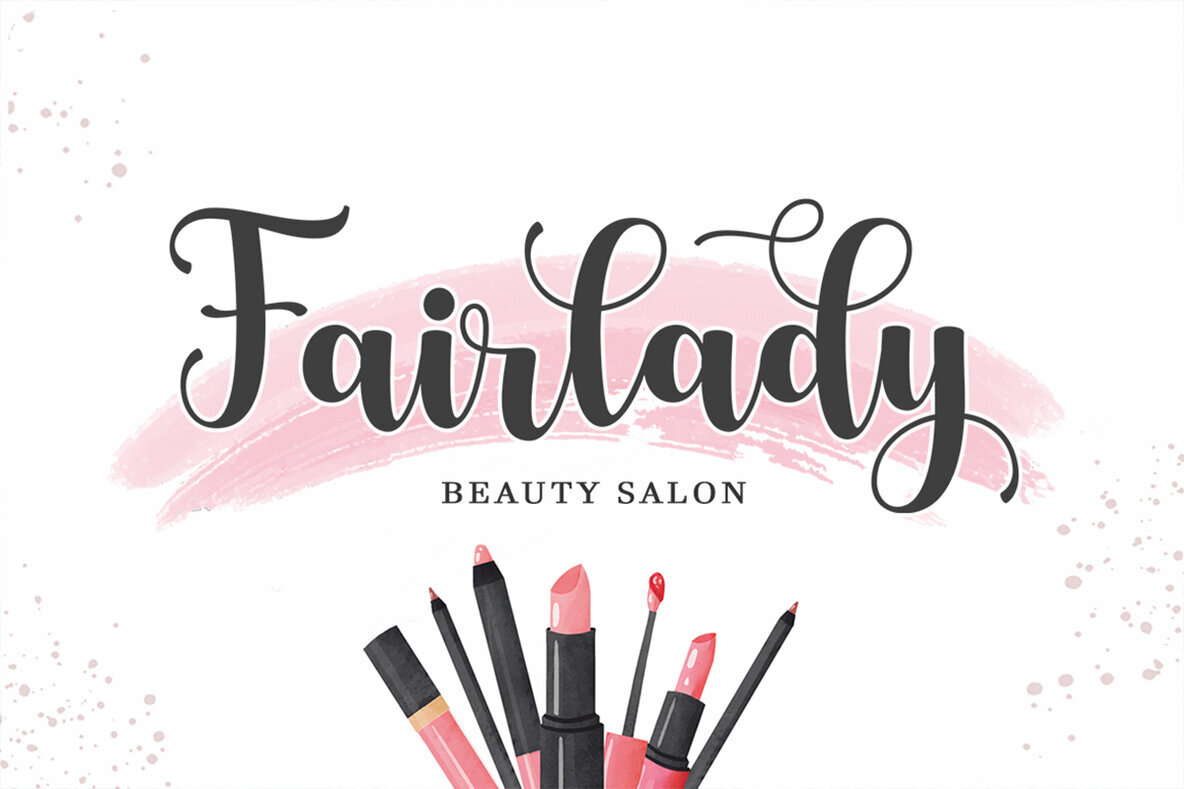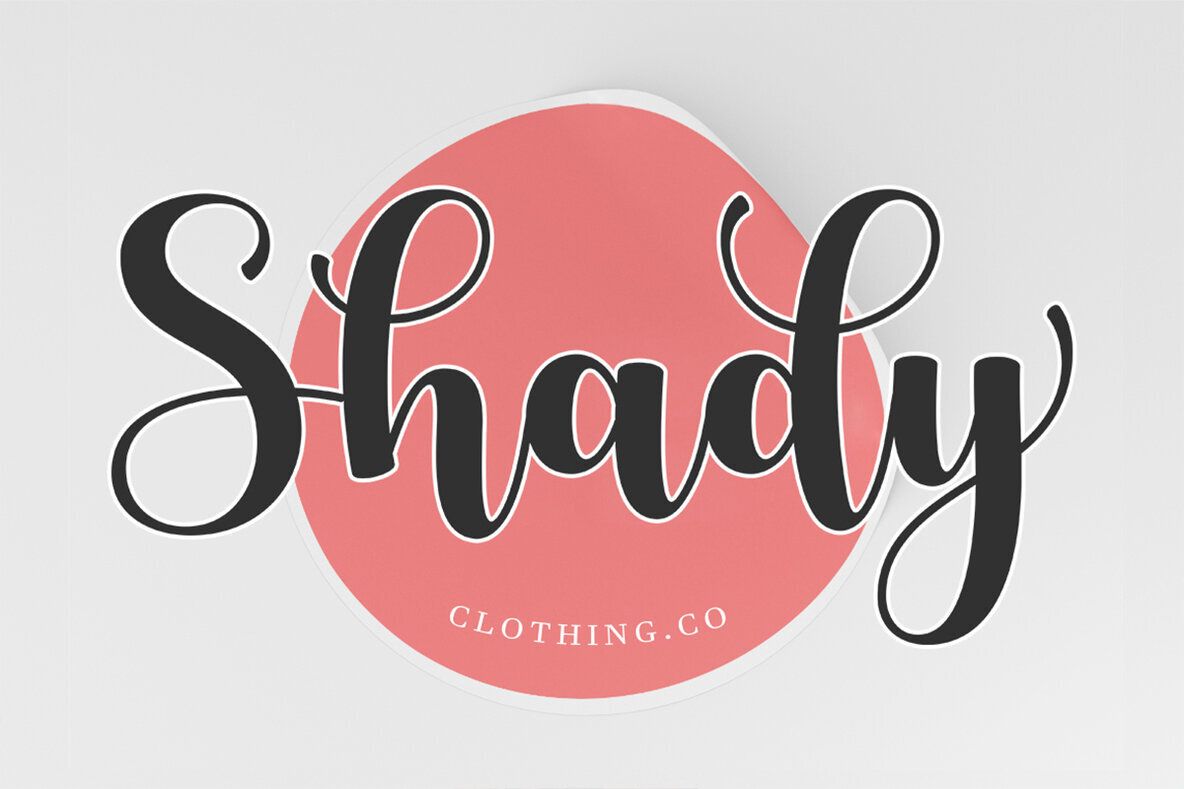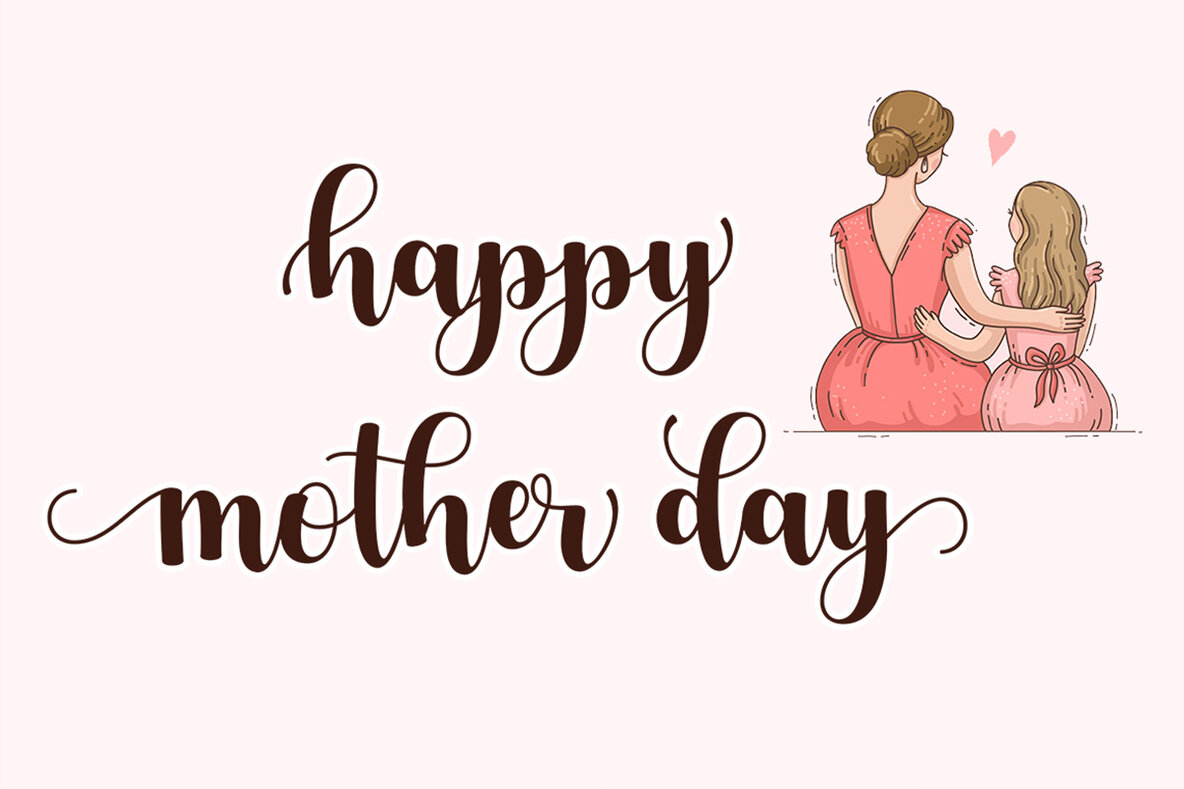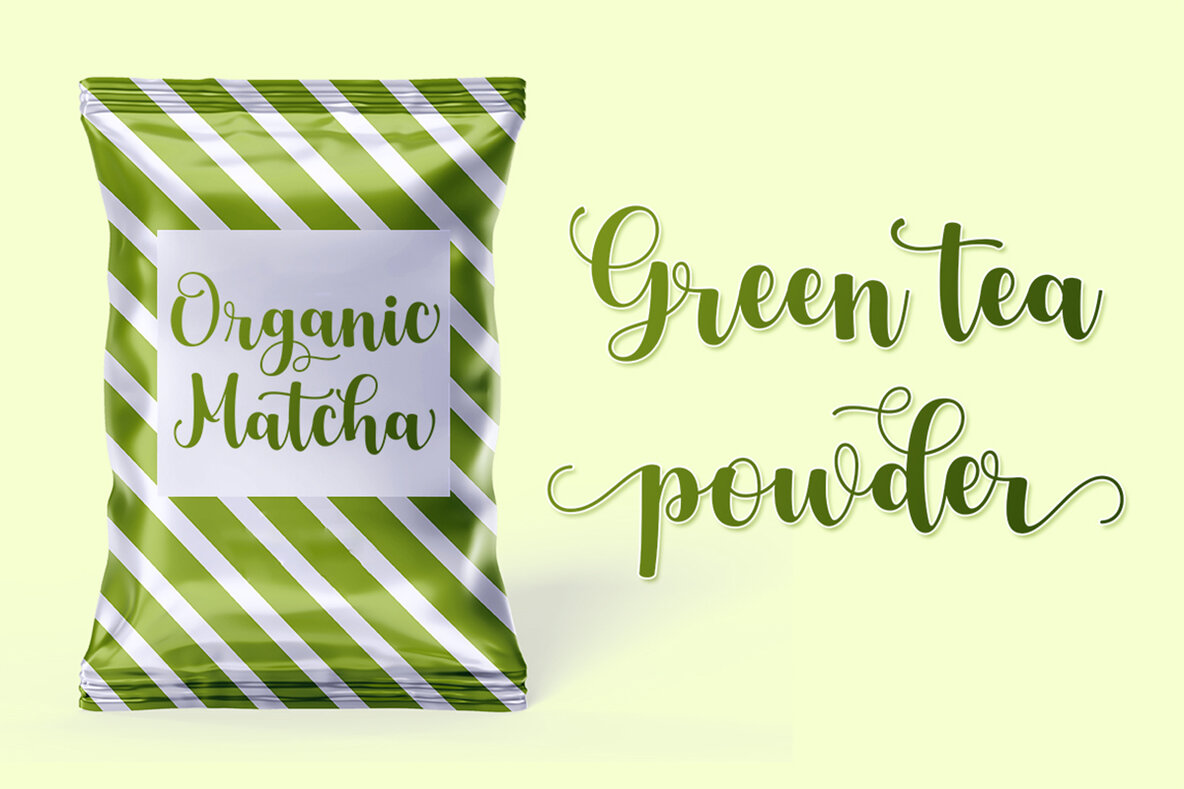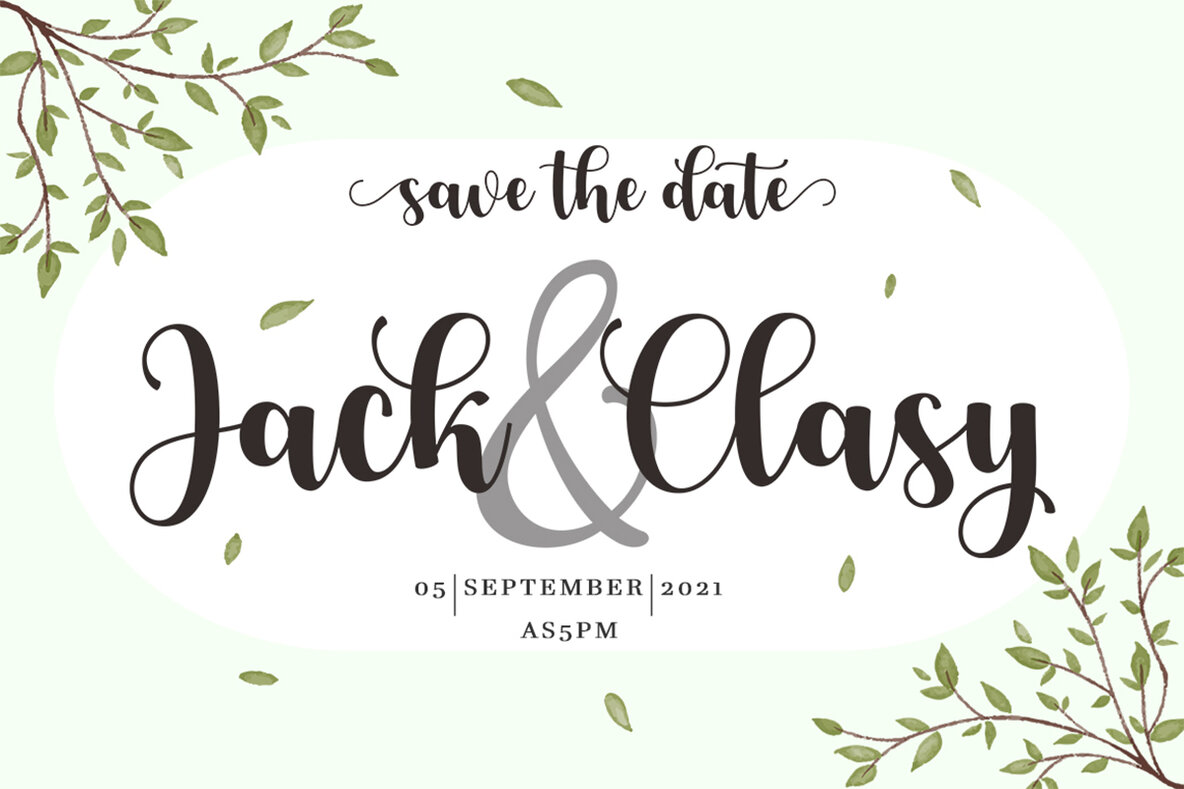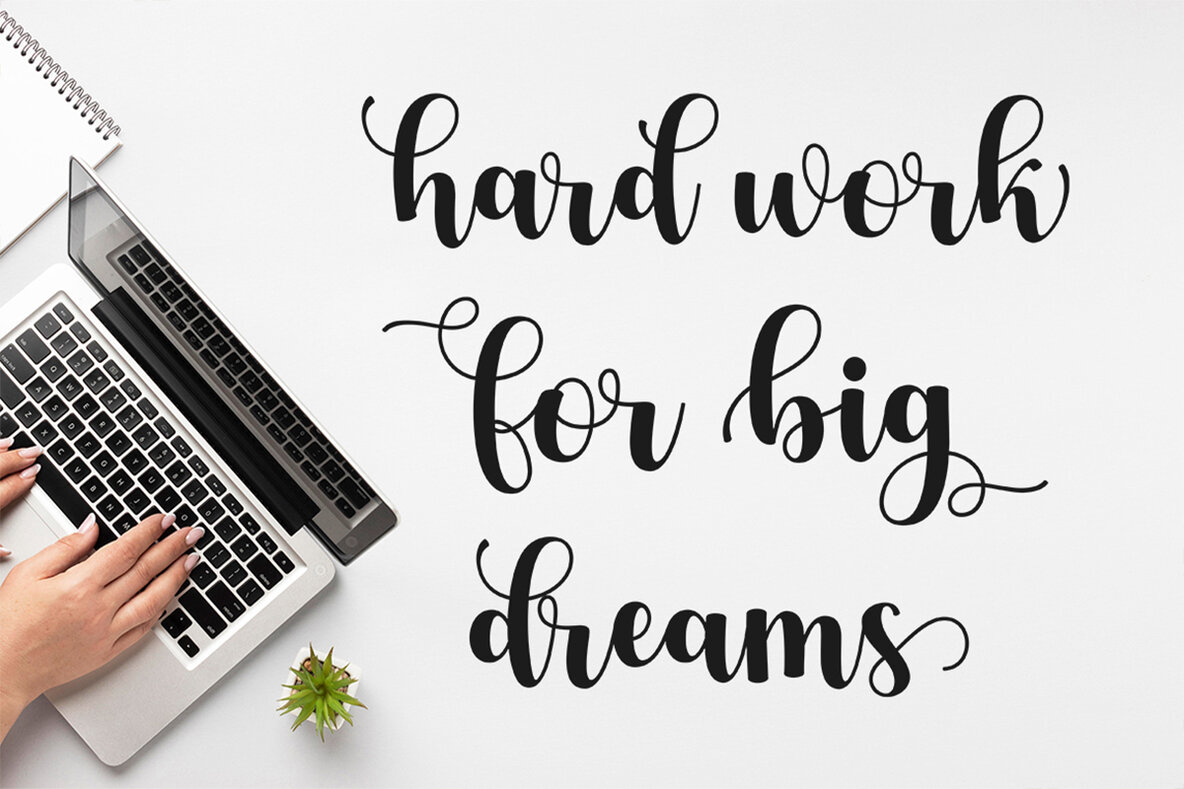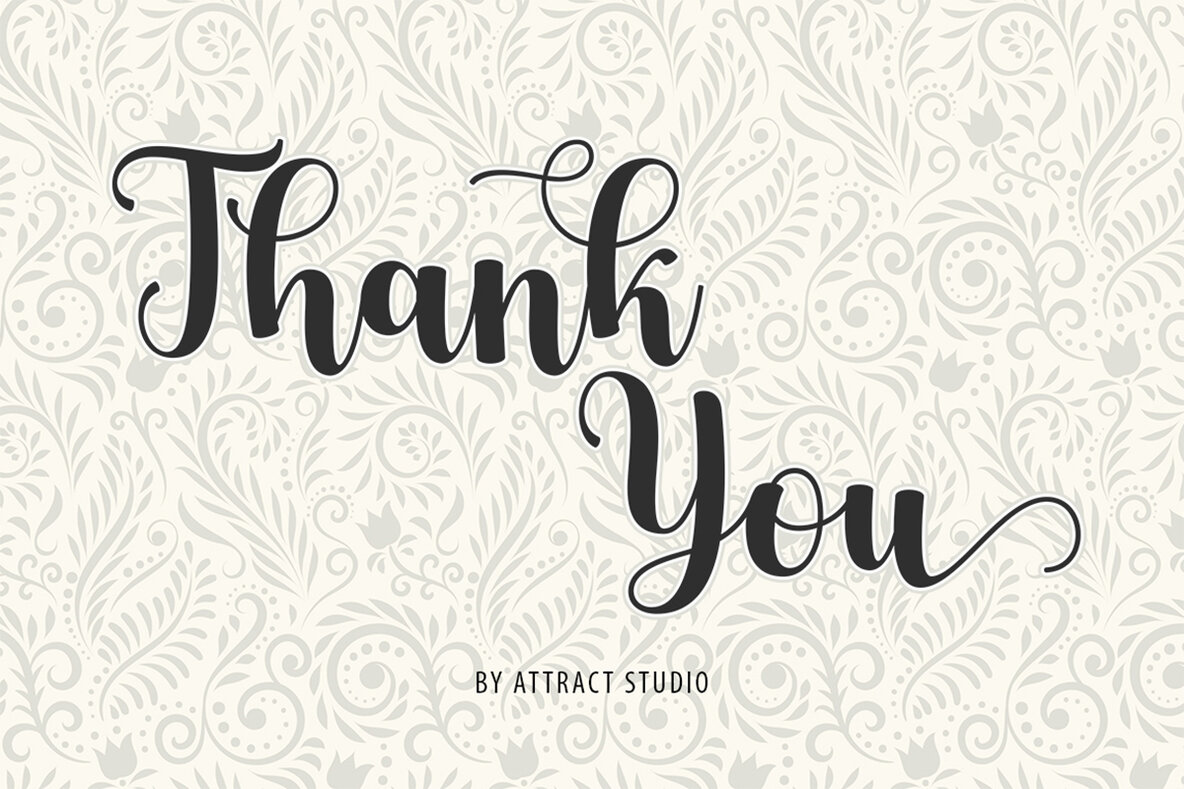
Matcha Latte Font
Discover the charm of Matcha Latte, a modern calligraphy font that effortlessly blends casual elegance with visual appeal. Its graceful swashes make it particularly well-suited for a wide range of creative applications. Matcha Latte offers versatile solutions for designers and brand enthusiasts.Matcha Latte: A Casual and Elegant Script Font